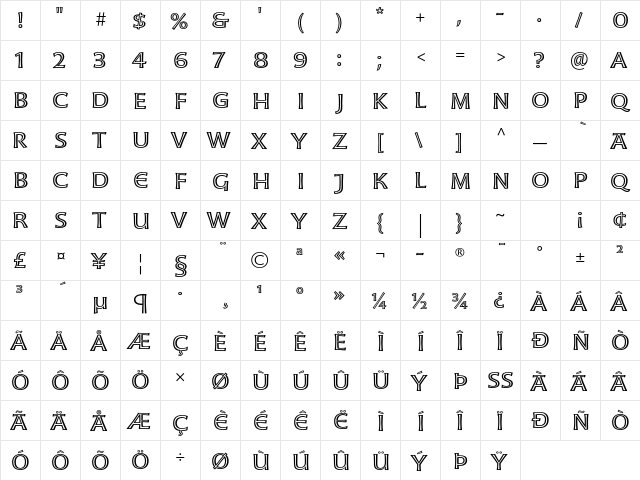
Moonglow Extended
| Designer | Michael Harvey |
Design Context for Moonglow Typeface
Moonglow offers clean, dependable letterforms without strong stylistic allegiance, making it a practical choice for designers who need flexibility.